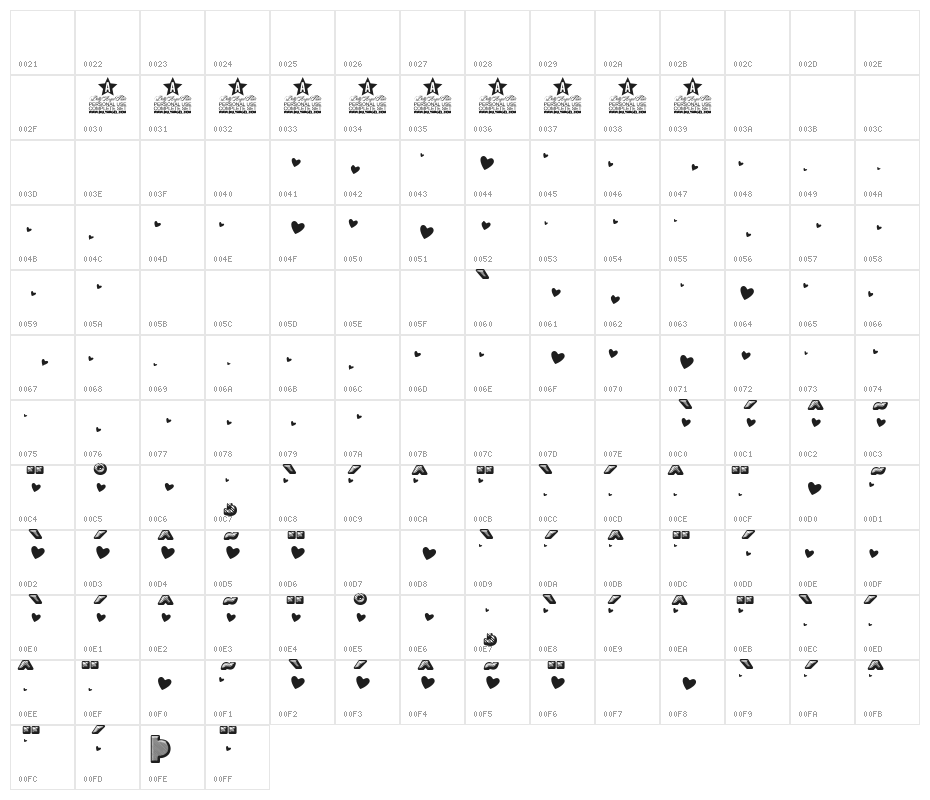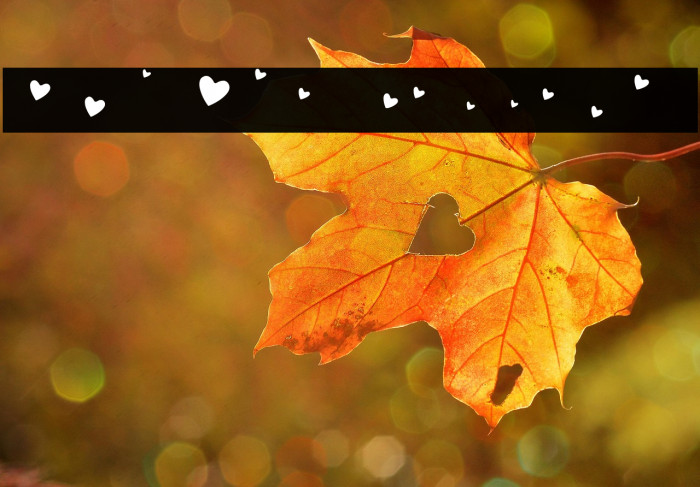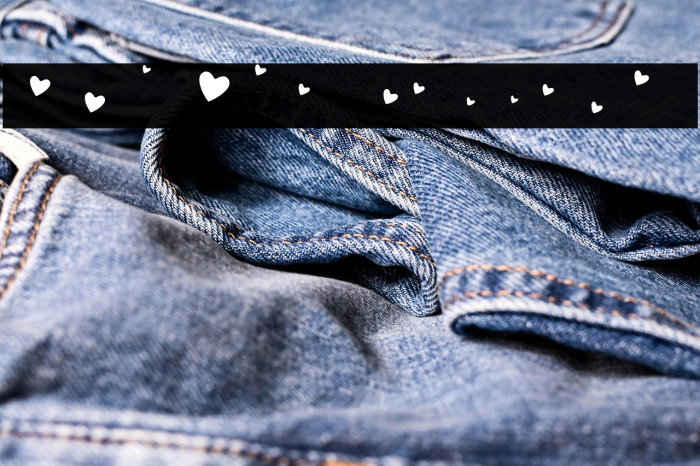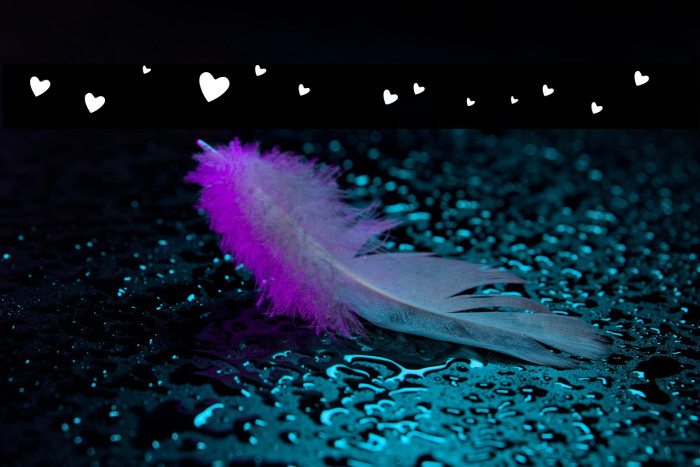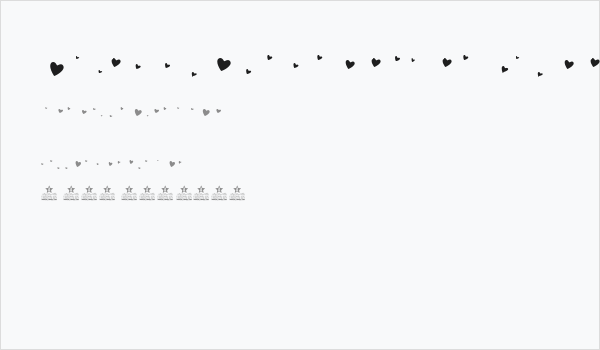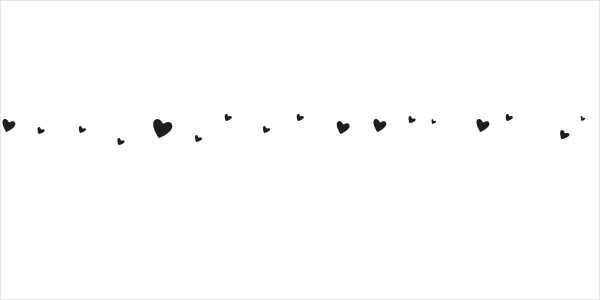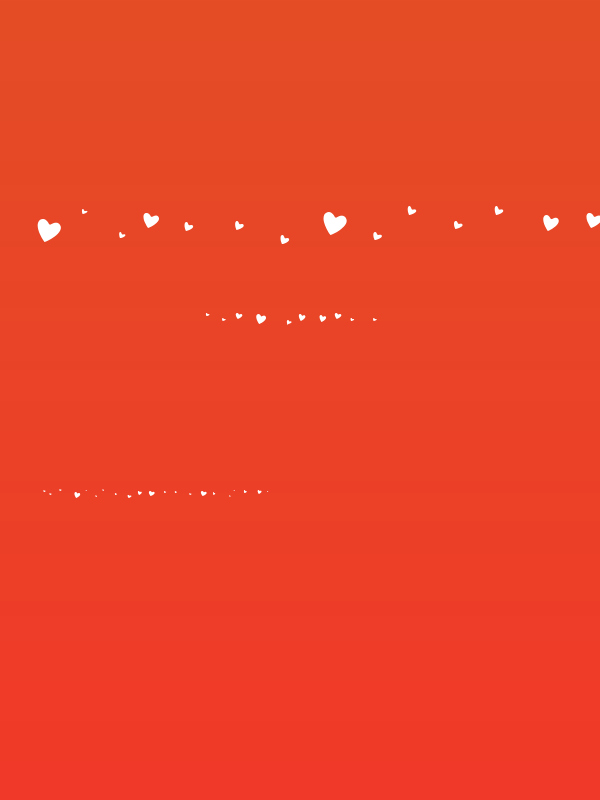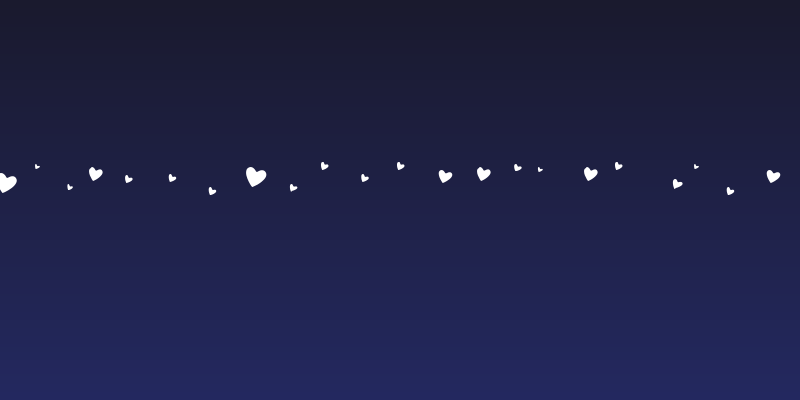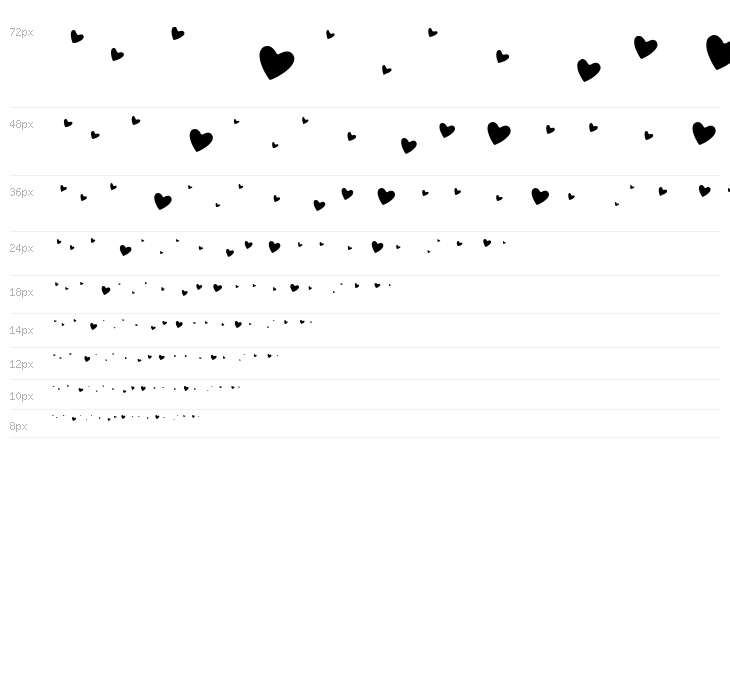
QUIRKY LOVE HEARTS Regular Font
QUIRKY LOVE HEARTS Regular Description
This decorative font features a playful and whimsical design, incorporating heart shapes into its characters. The style is characterized by its charming and romantic theme, making it ideal for projects that require a touch of love and affection. The heart motifs are integrated seamlessly into the letterforms, creating a cohesive and visually appealing typeface. The font's unique design is perfect for creative and expressive applications, where a fun and lighthearted aesthetic is desired. Its distinctive appearance ensures that it stands out, making it suitable for eye-catching designs.
Use CaseLogos, Headlines, Greeting cards
Proposed ProjectsIdeal for Valentine's Day cards, wedding invitations, love-themed posters, and playful branding projects.